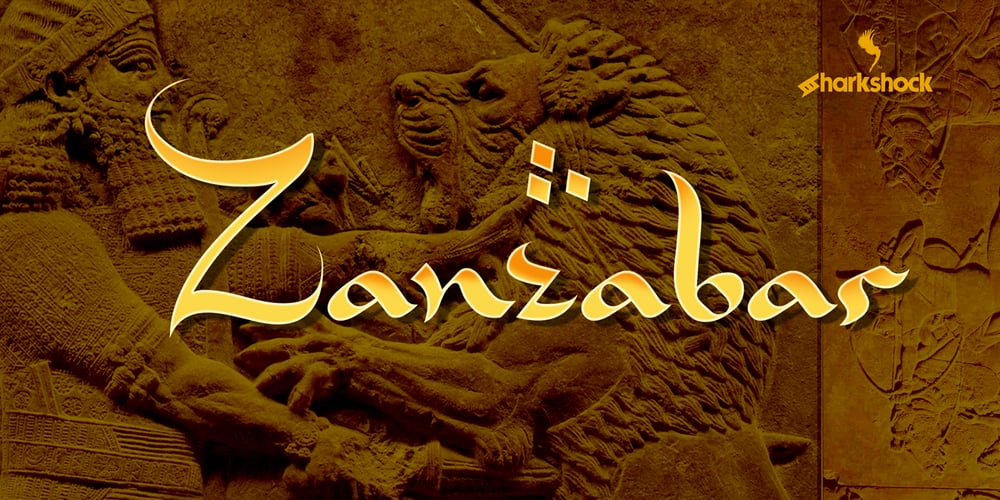
Zanzabar Font Family was designed by Dennis Ludlow and published by Sharkshock. Zanzabar contains 1 styles and family package options. Zanzabar is an exotic display font with a distinctive Middle Eastern flair. Its characters loosely mimic the Arabic script with lowercase letters being much smaller than uppercase. Special emphasis was given to the wispy, brush-like appearance of its characters for a suggestion of authenticity. This works best from far away or at small sizes. Although decorative by nature, the entire character set is relatively easy to read. Use Zanzabar for a restaurant logo, children’s book, or a movie poster.